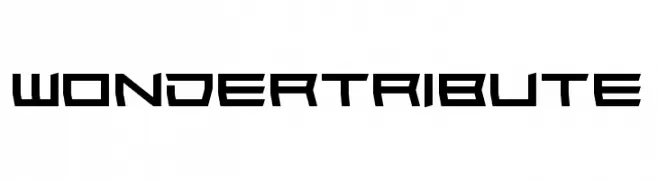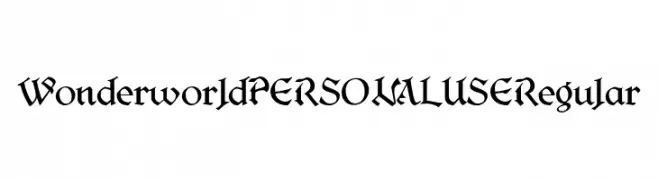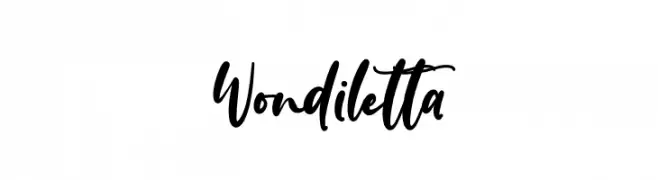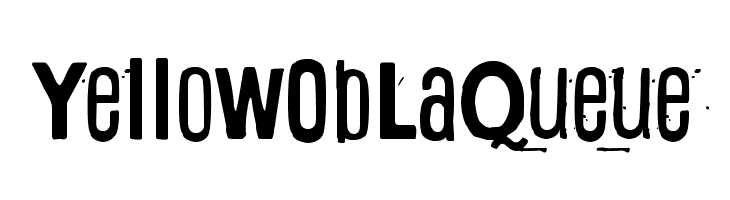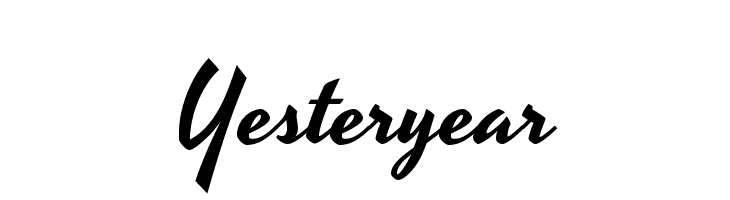
A graceful and fluid script font with a modern calligraphic style.
A bold, handwritten font with a playful and energetic style.
A tall, slender, and elegant font with a modern minimalist style.
A bold, rounded font with a playful and approachable style.
A bold, modern script font with a dynamic and elegant style.
A bold blackletter font with sharp, angular lines and ornate details.
A dynamic handwritten script with fluid strokes and balanced spacing.